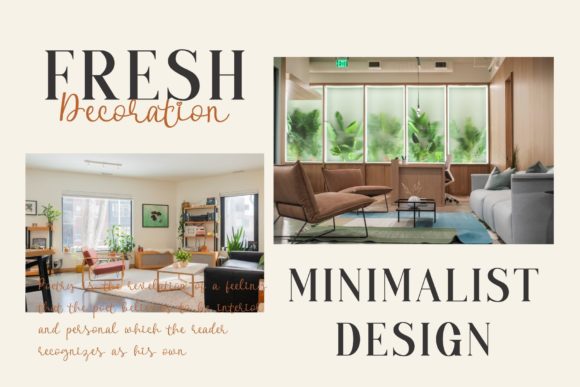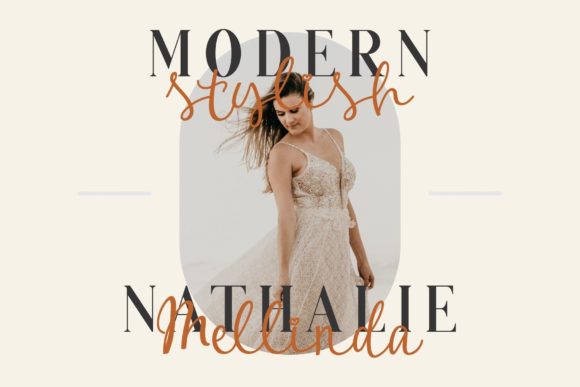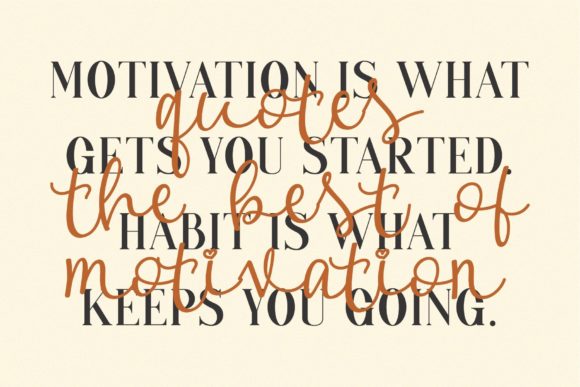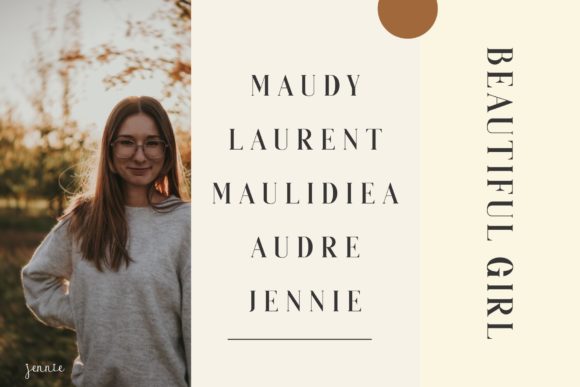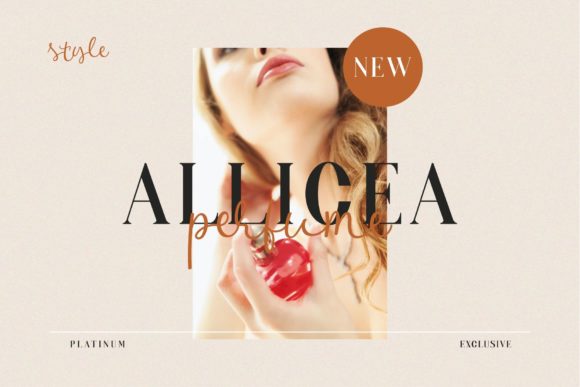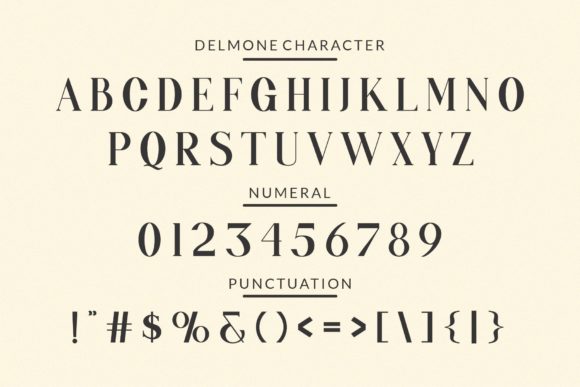
Find Your Perfect Match with Delmone & Mortalue Font
There’s nothing quite like the thrill of brainstorming a new project, pouring over ideas, and finally landing on the perfect concept. It’s that moment when everything clicks, and you know exactly how you want your brand to feel – friendly, approachable, and uniquely you. For designers, finding the right font can make all the difference in conveying that tone and setting the tone for your entire visual identity.
That’s where Delmone & Mortalue Font comes in – a stunning duo font that pairs perfectly with your creative vision. This comprehensive font features both a beautiful script and serif style, allowing you to mix and match to create a look that’s uniquely yours. Whether you’re working on a branding project, a marketing campaign, or a design piece, Delmone & Mortalue Font is the perfect addition to your toolkit.
With Delmone & Mortalue Font, you can create a consistent and recognizable brand voice that resonates with your audience. Its versatility and charm make it a valuable asset for designers looking to elevate their projects and leave a lasting impression.
Delmone & Mortalue Font Key Features
- Font Family: Delmone & Mortalue, a unique serif font with elegant and vintage flair.
- Unique Characteristics: Delmone & Mortalue features distinctive serifs, elegant line endings, and a refined x-height, making it perfect for luxury branding, book publishing, and editorial design.
Delmone & Mortalue Font Review
Overall, I’m quite impressed with Delmone & Mortalue Font. It’s a beautiful, elegant script font that’s perfect for adding a touch of sophistication to your designs. ✨ Here are some things that work well:
- Unique and intricate letterforms that add a touch of whimsy to your designs.
- Perfect for use in invitations, greeting cards, and other stationery items.
- Works well in both digital and print designs.
- The font may be a bit too ornate for some designs, which could make it difficult to read.
- The font doesn’t come with a bold or italic version, which may limit its use in certain situations.
- The font may not be suitable for use in body text, as it’s quite decorative and may be distracting.
Overall, I’d say Delmone & Mortalue Font is a great choice for designers who want to add a touch of elegance to their designs. It’s perfect for use in invitations, greeting cards, and other stationery items, but may not be the best choice for body text or other designs where readability is a priority.
Tip: Use Delmone & Mortalue Font to add a touch of elegance to your wedding invitations, menus, or other formal designs.
Tip: Use Delmone & Mortalue Font to create a unique and eye-catching logo or typography-based design.
Tip: Use Delmone & Mortalue Font to add a touch of sophistication to your business presentations or reports.
Delmone & Mortalue Font is suitable for various design projects, including:
- Business cards and stationery
- Typographic designs and posters
Remember to use the font in a way